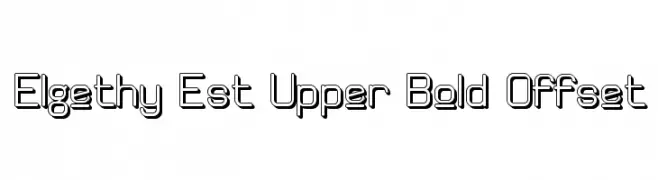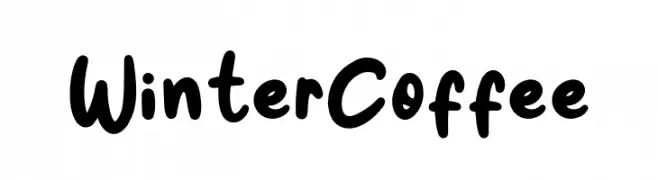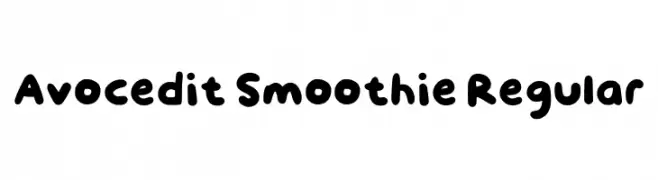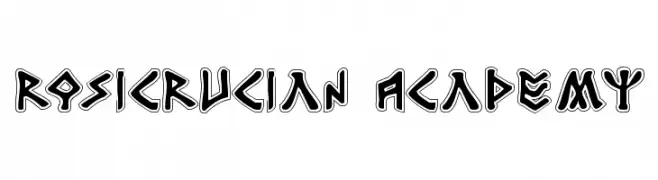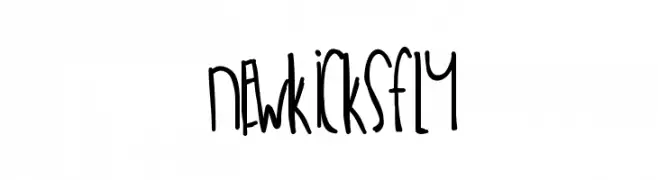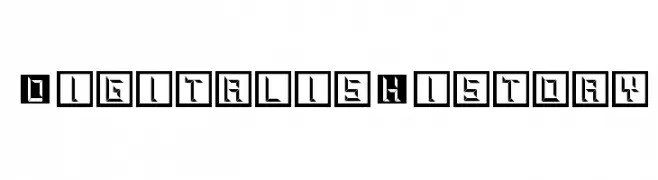
A hand-drawn, rustic font with a playful and organic style.
A bold, modern font with a unique offset outline and geometric design.
A playful, bold handwritten font with a casual and friendly vibe.
A playful, rounded font with a smooth, bold appearance and friendly style.
A bold, angular font with a futuristic and edgy design.
A playful, handwritten font with tall, narrow letters and a whimsical style.
A bold, italic font with a dynamic and powerful style.
A playful, decorative font with star and heart embellishments.
A bold, distressed font with a rugged, textured appearance.
A bold, geometric font with a digital, tech-inspired design.